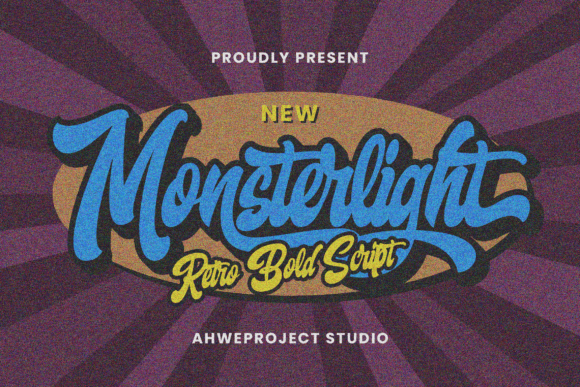
Prepare yourself to be spellbound by Monsterlight Font, a retro, bold script font that will transport you back to the groovy 60s and 80s. This captivating typeface possesses an extraordinary extruded version that effortlessly crafts a captivating retro effect, leaving you with boundless creative possibilities.
Unleash your imagination and utilize Monsterlight Font to design logos that exude a timeless charm, invitations that radiate vintage elegance, and labels that evoke a sense of nostalgia. Its versatility extends to magazines, books, greeting cards, wedding invitations, packaging, fashion, make-up, stationery, novels, and advertising projects, where it adds a touch of retro flair that is sure to leave a lasting impression.
The brilliance of Monsterlight Font lies in its PUA encoding, which grants you effortless access to a world of glyphs and swashes. Unleash your creativity and weave enchanting designs that capture the essence of bygone eras.